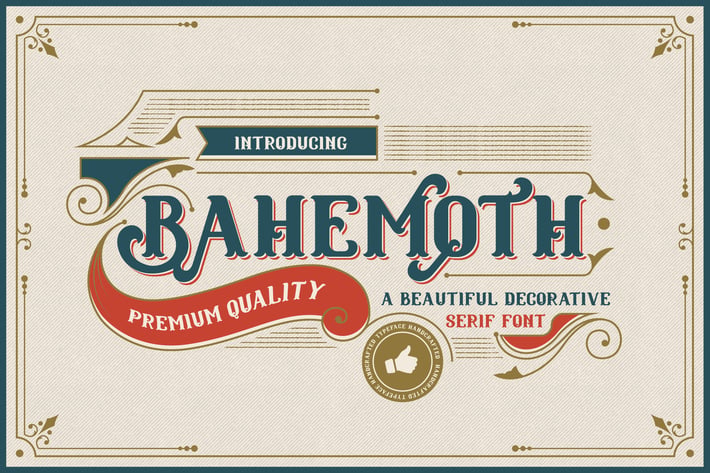
Bahemoth - Vintage Decorative Serif Font
Introducing Bahemoth Vintage Decorative Serif font. Are you looking for a bold decorative serif font that has a vintage feeling? We can help! Try to download our Bahemoth font. The font is suitable to use for many vintage related occasion such as product, branding, invitation, banner, movie title, brand, event, and many more.
Basic Latin A-Z and a-z
International Character
Alternate and Ligature